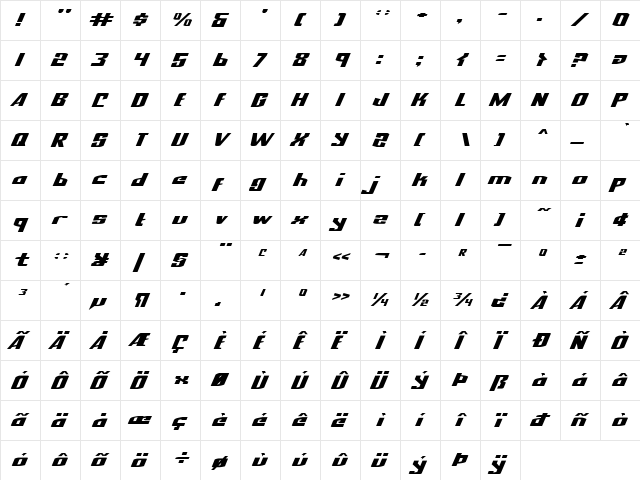
National Express Exp Italic Exp Italic
| Style | Exp Italic |
National Express Exp Italic takes a measured approach to typography — its balanced proportions and neutral character make it a reliable workhorse for both digital and print work. The slanted form adds forward momentum and visual energy.
Pro Tip: Use National Express Exp Italic for emphasis, pull quotes, and subheadings where its slanted energy can add rhythm to the layout.